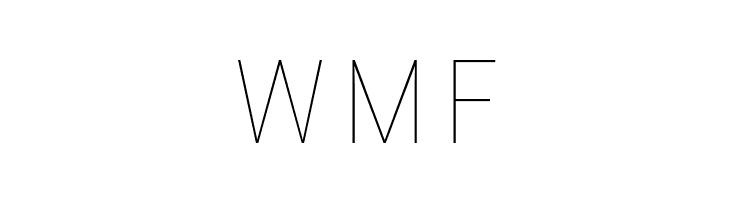
( Fonts by Cooper Hewitt Smithsonian Design Museum )
A clean, modern sans-serif font with geometric letterforms and consistent stroke width.
( Fonts by Cooper Hewitt Smithsonian Design Museum )
A modern, medium-weight italic sans-serif font with a sleek and dynamic style.
( Fonts by Cooper Hewitt Smithsonian Design Museum )
A bold, modern sans-serif typeface with uniform stroke widths and excellent readability.
( Fonts by Cooper Hewitt Smithsonian Design Museum )
A modern, semi-bold italic sans-serif font with consistent stroke thickness.
( Fonts by Cooper Hewitt Smithsonian Design Museum )
A thin, minimalist sans-serif font with a clean and modern look.
( Fonts by Cooper Hewitt Smithsonian Design Museum )
A thin, italicized sans-serif font with a modern and elegant style.